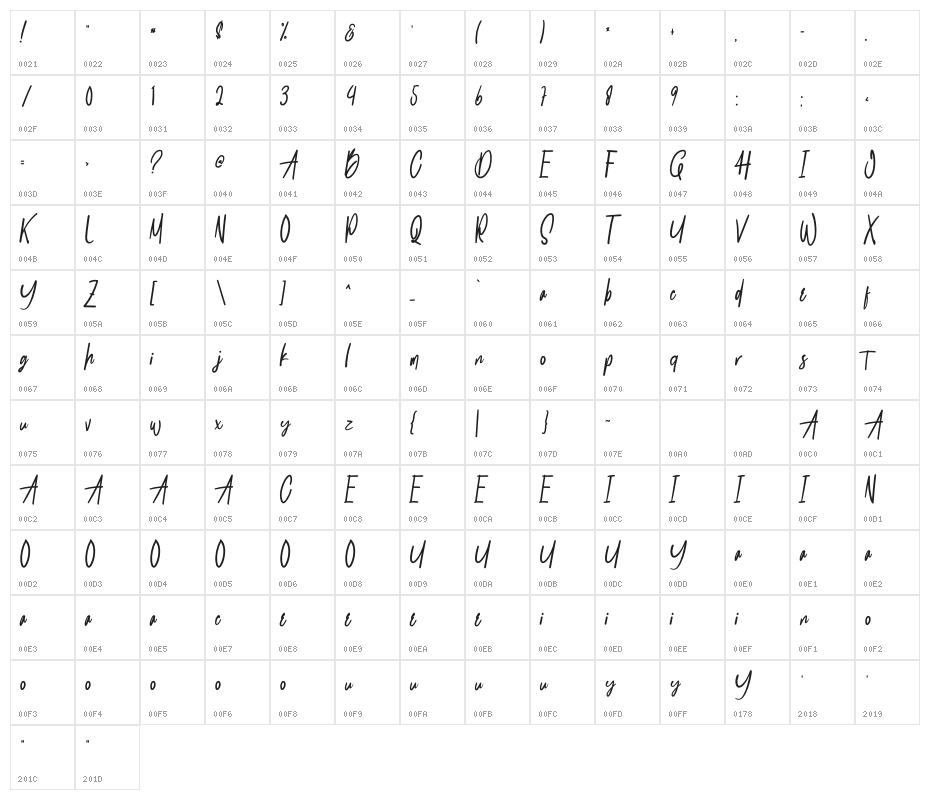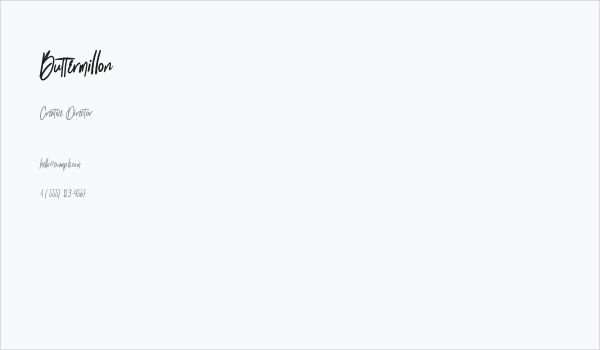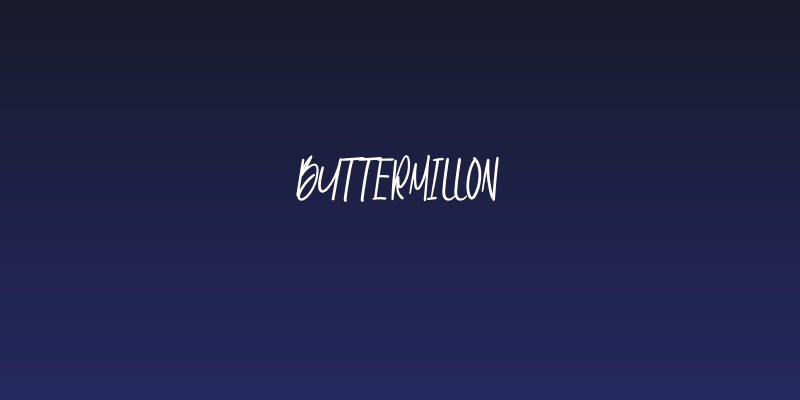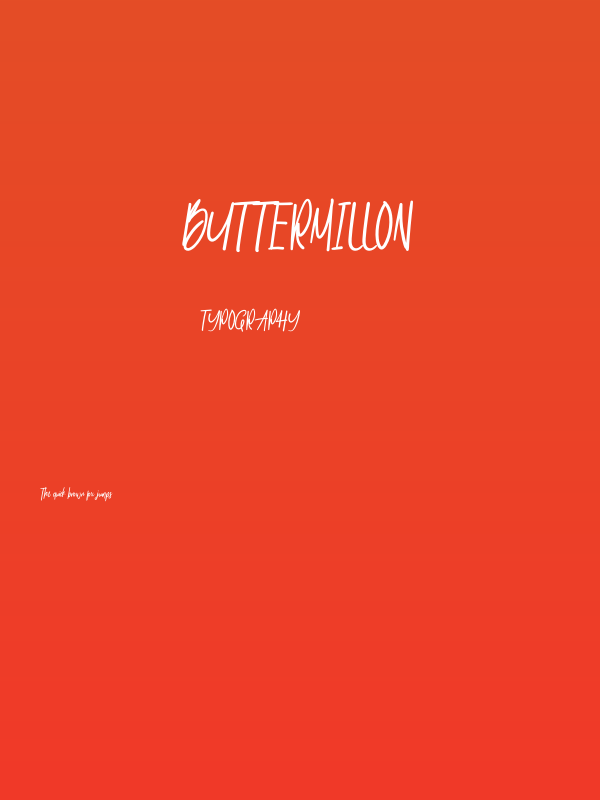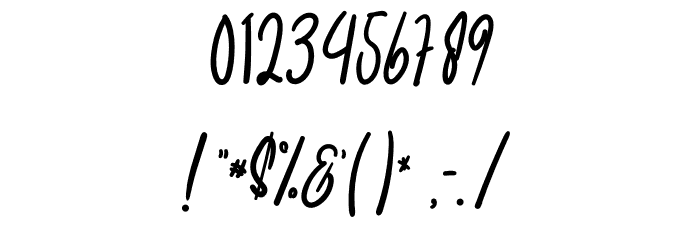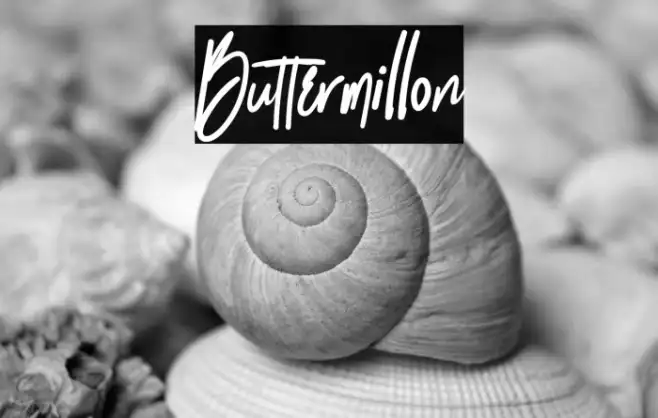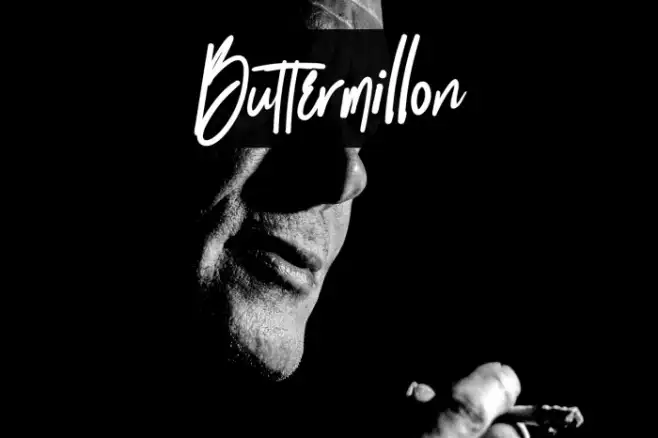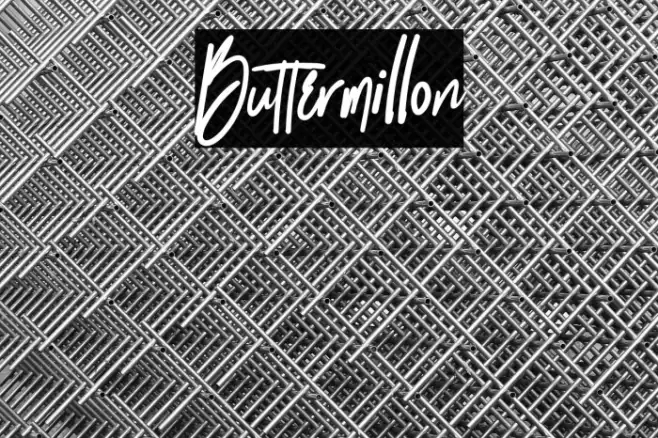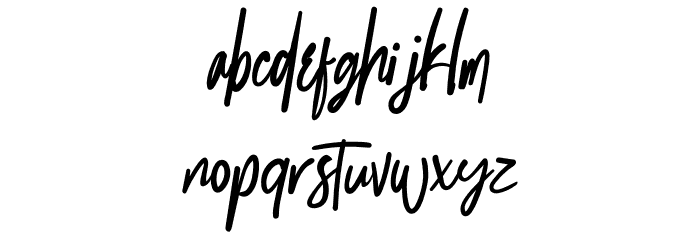
Buttermillon Font
Buttermillon Description
This font features a dynamic and expressive handwritten style, characterized by its fluid and slightly slanted letterforms. The uppercase letters are bold and prominent, with a playful yet sophisticated flair, while the lowercase letters maintain a consistent flow, enhancing readability. The numbers and special characters are crafted with the same attention to detail, ensuring a cohesive look across all text. The strokes vary in thickness, adding a touch of elegance and movement to the overall appearance. This font exudes a modern and artistic vibe, making it suitable for creative and engaging designs.
| Use Case | Logos, Headlines, Artistic designs |
| Proposed Projects | Ideal for branding, invitations, greeting cards, social media graphics, and artistic projects. |